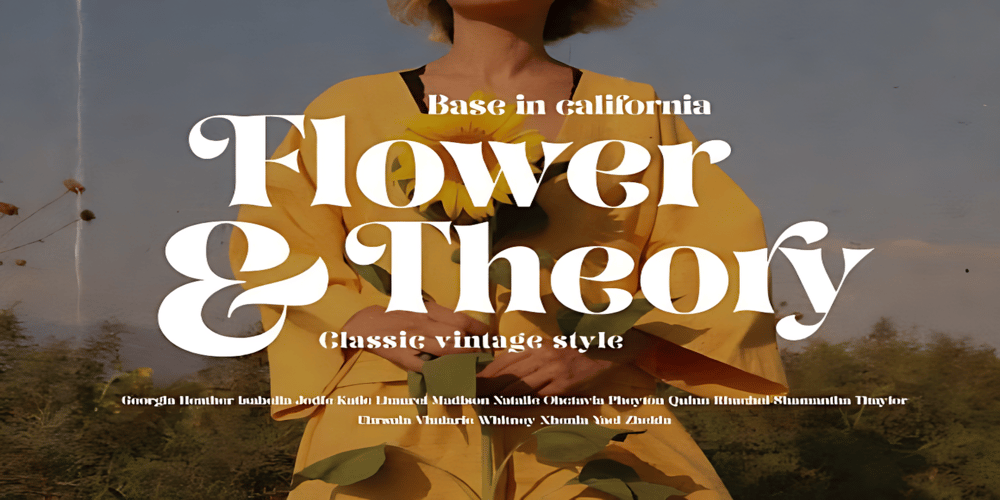
Flower and Theory Font Family was designed by Mark Jamra, Frank Pendrell and published by Adita Fonts. Flower and Theory contains 1 styles and family package options. Flower and Theory is a modern and elegant serif font. Perfect for us on your logos, quotes social media, business cards, web designs and so much more.COMPATIBILITY Windows Apple/Mac Linux Easily convert to webfont